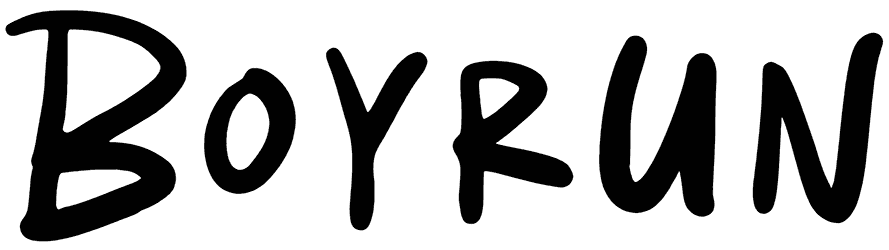
Boyrun Font
Modern lettering is always one of the best items for varied projects, and this handwritten font with its realistic face is a member of this group. A casual and playful face of characters will give a ravishing style to your design, but consider that it doesn’t cover lowercase letters. Try the Boyrun font for your next layout, namely a café menu, and be impressive.